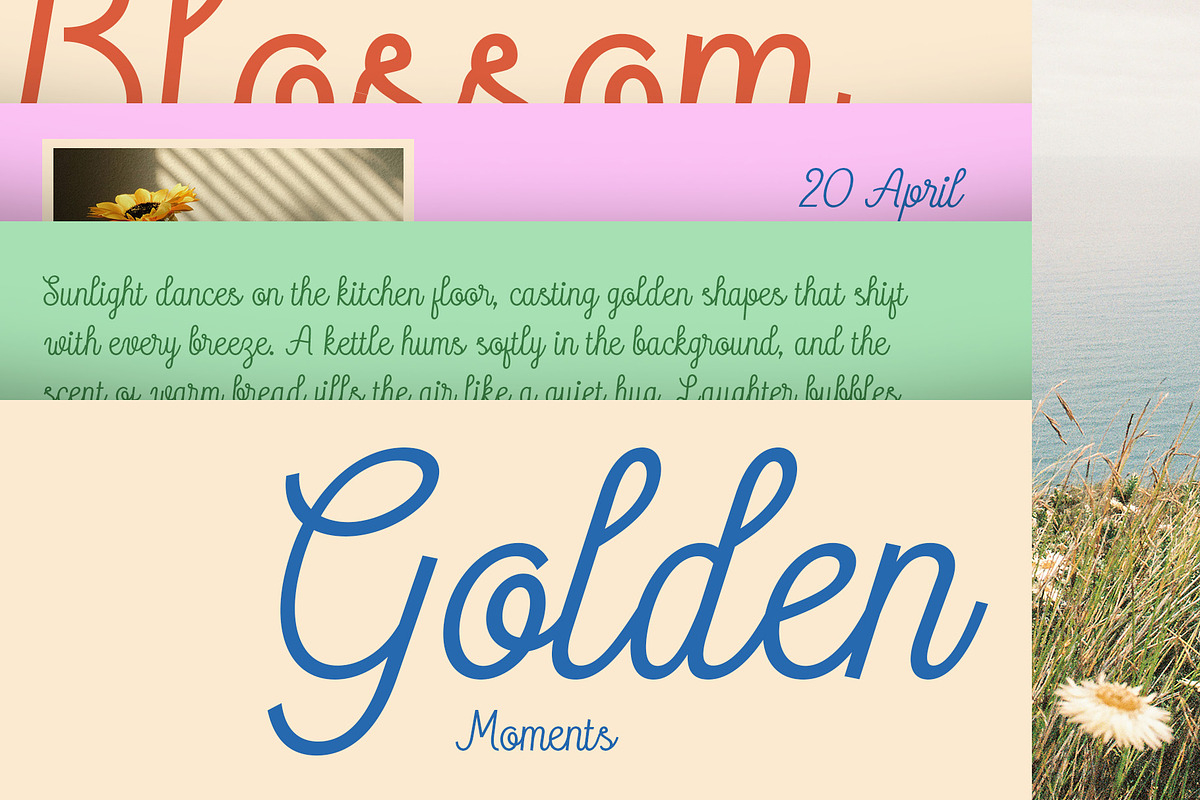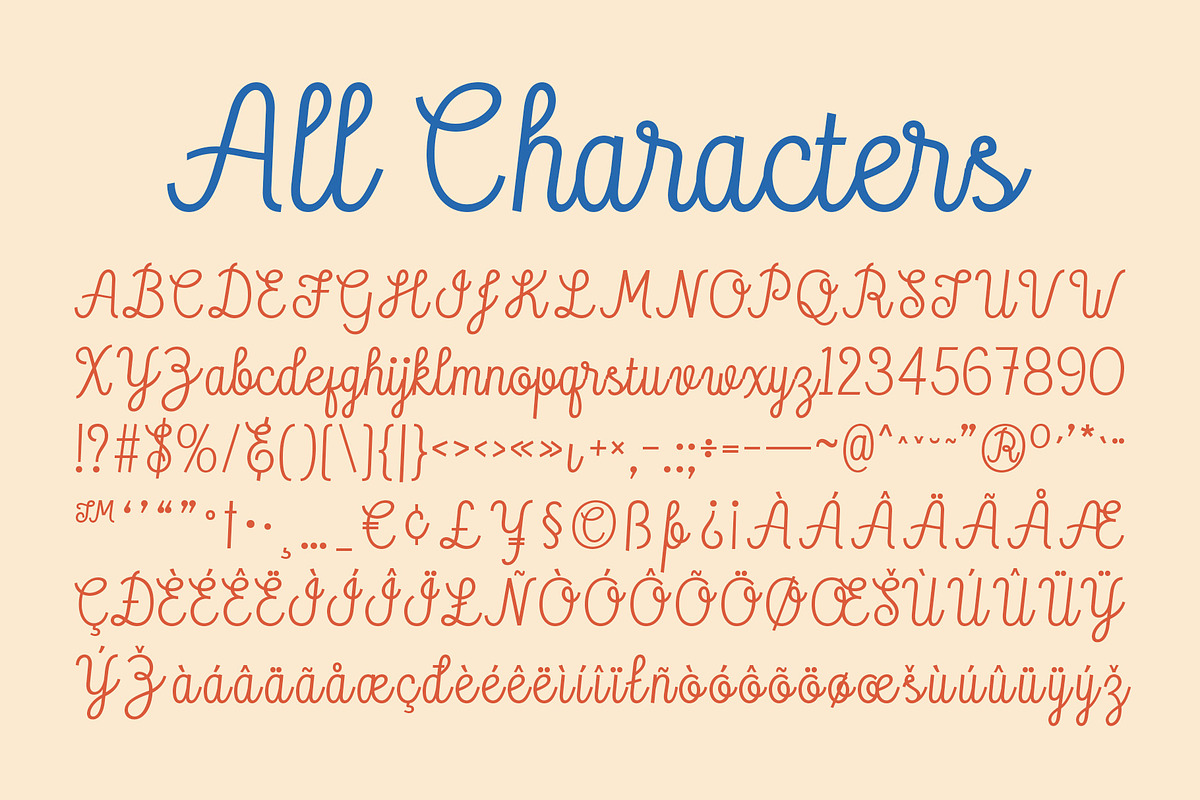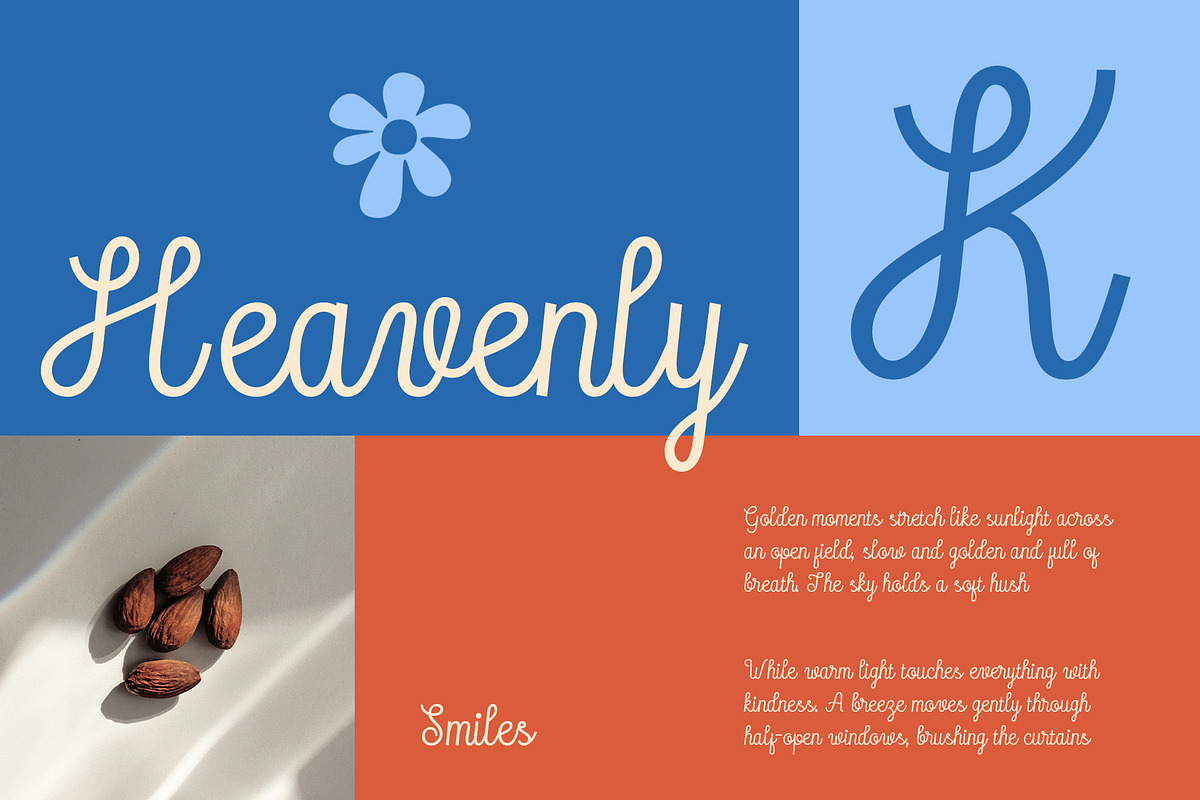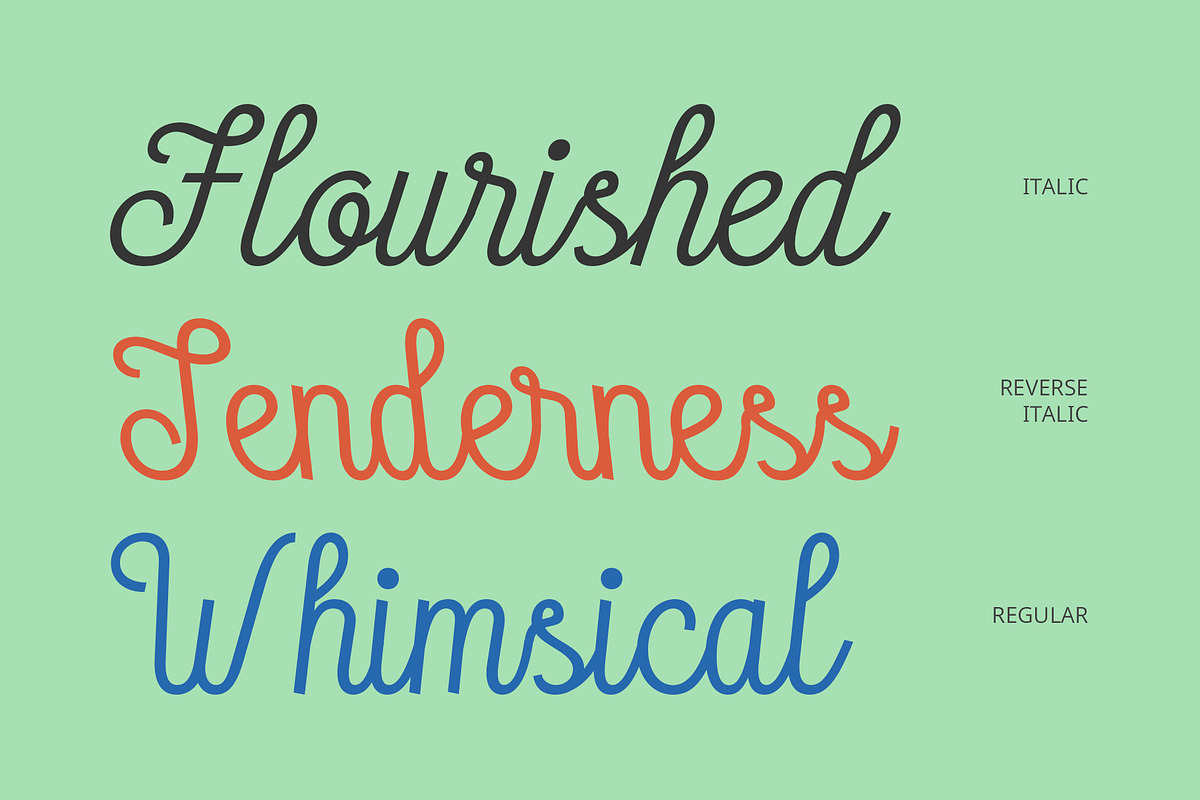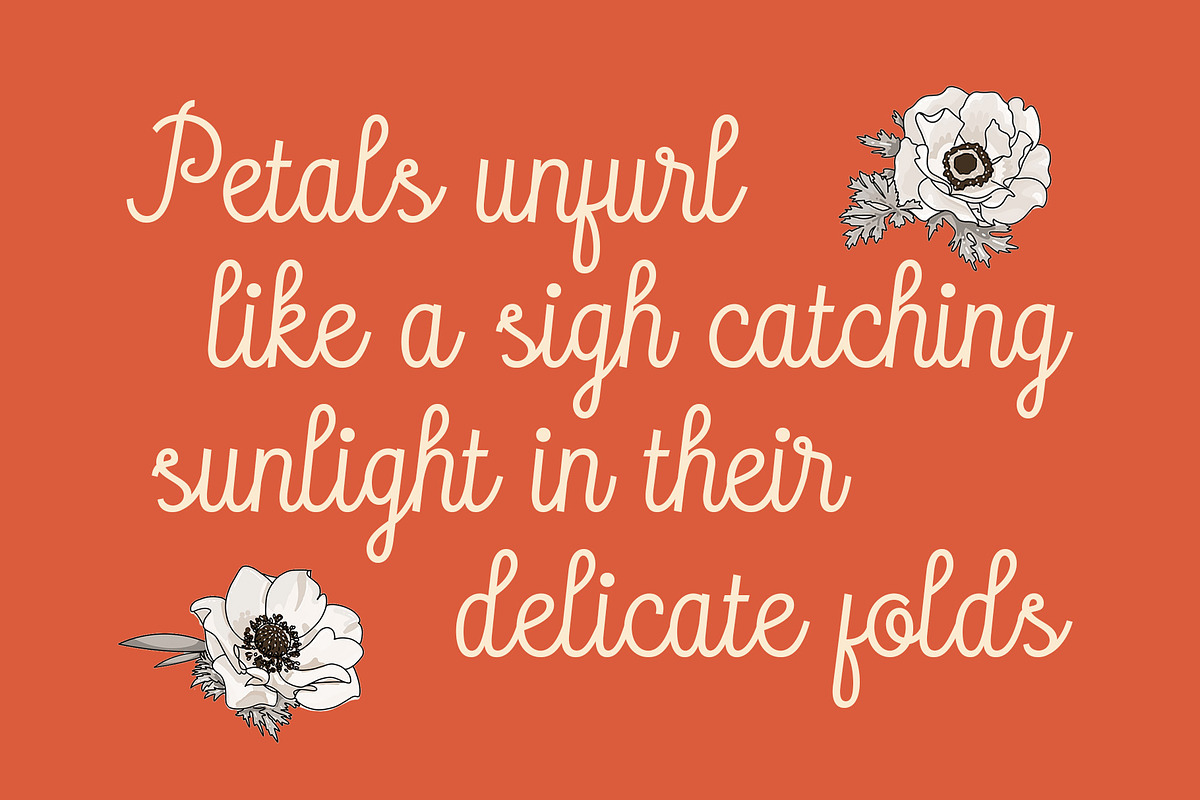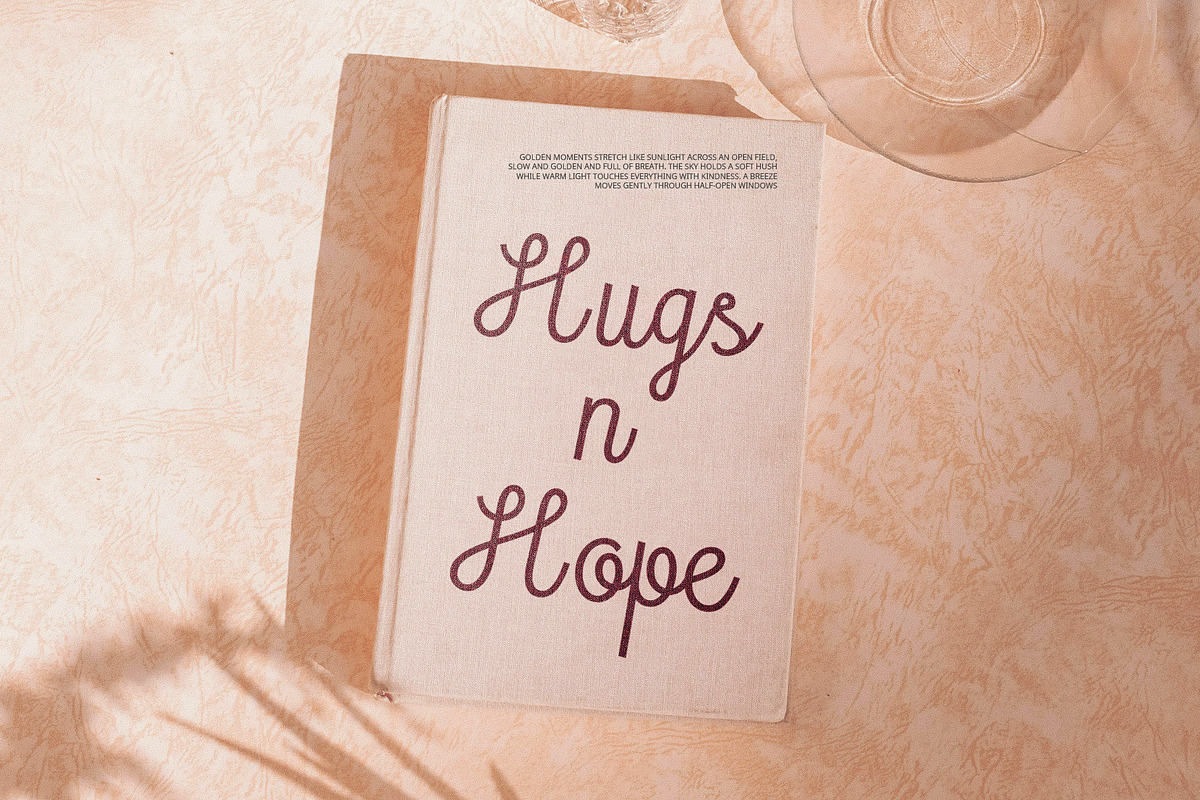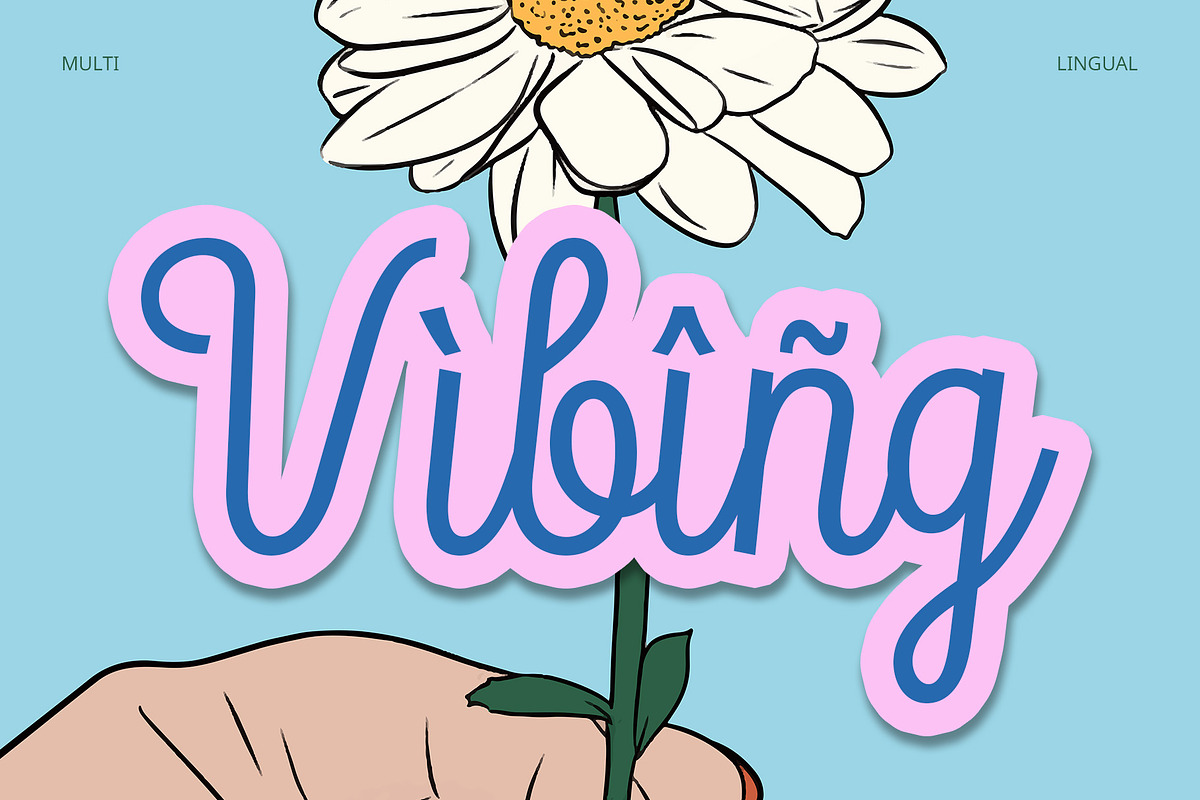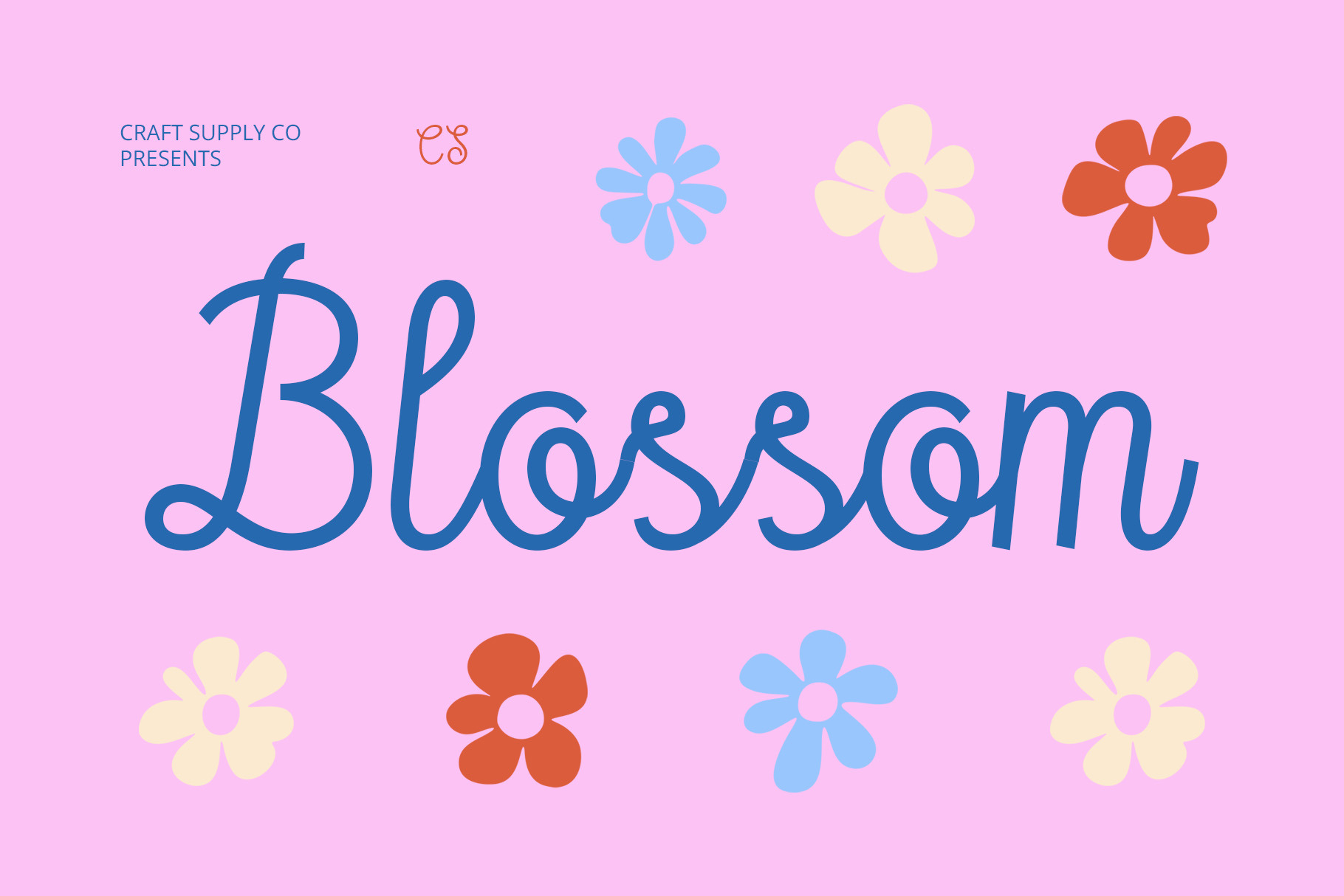
CS Blossom – Script Font
CS Blossom – Script Font: Where Elegance Feels Personal
Graceful Handwritten Style with Elegant Beauty CS Blossom is a modern script font that captures the essence of handwritten elegance. Each letter flows gently and naturally, offering a soft and refined appearance that feels personal and heartfelt. The smooth curves and clean lines give it a graceful, feminine charm—perfect for designs that aim to evoke emotion and beauty.
Clean, Feminine, and Charming Feel Designed with a clean structure and delicate balance, CS Blossom radiates a feminine and lovely tone. Its gentle rhythm and subtle flourishes bring a sense of authenticity, making it ideal for romantic or stylish projects. Whether used in display size or body text, it adds warmth and character with ease.
Perfect for Beauty and Lifestyle Themes This font is especially suited for projects that focus on beauty, fashion, weddings, or wellness. Use it for branding, aesthetic quotes, social media posts, or elegant invitations—anywhere you want to highlight sophistication with a sweet and graceful touch.
Versatile for Creative and Personal Projects CS Blossom’s charming script style adapts well across various visual needs. From product packaging to stationery and digital content, it offers a beautiful balance between personal expression and modern design. Let your visuals bloom with CS Blossom’s heartfelt elegance.
- CS Blossom Regular
- CS Blossom Italic
- CS Blossom Reverse Italic